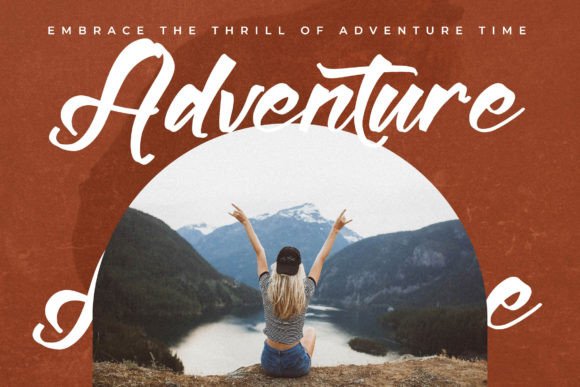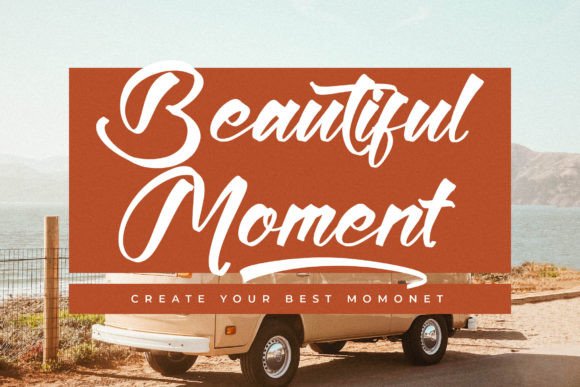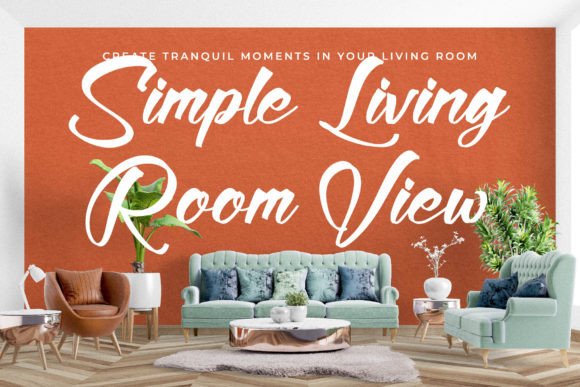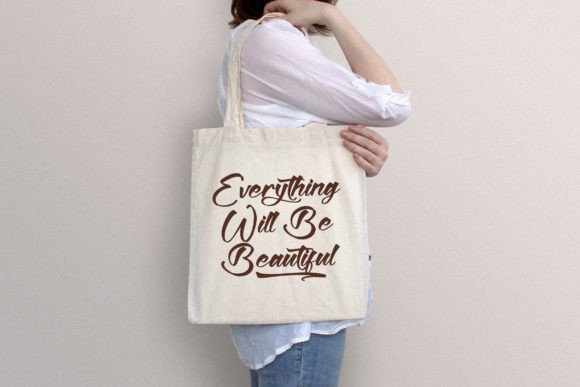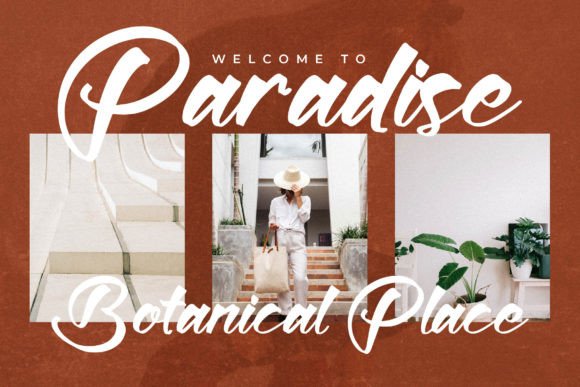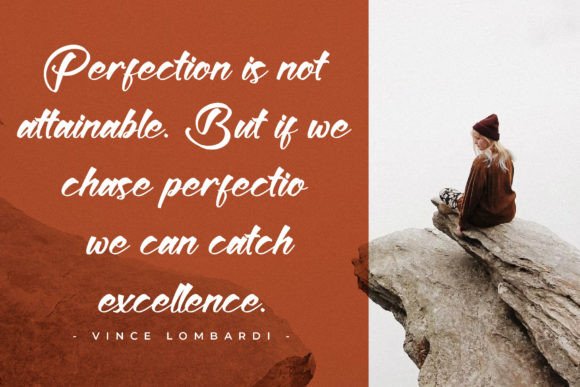
Freytha Brighter – Elevate Your Designs with Modern Calligraphy Script
In the realm of typography, a well-crafted font can elevate a design from ordinary to extraordinary. For those seeking a modern calligraphy script that exudes elegance and sophistication, look no further than Freytha Brighter. This stunning font, created by Glorytype Studio, is perfect for designers and crafters looking to add a touch of luxury to their projects.
What is Freytha Brighter?
Freytha Brighter is a modern calligraphy script font that boasts a beautiful, flowing design. Its elegant strokes and refined lettering make it an ideal choice for a wide range of projects, from logos and branding to homeware designs, product packaging, and more. The font’s versatility and aesthetic appeal have made it a popular choice among designers and crafters.
Key Features of Freytha Brighter
- Elegant Calligraphy Script: Freytha Brighter features a stunning modern calligraphy script with flowing strokes and refined lettering.
- Highly Versatile: The font is suitable for a wide range of projects, including logos, branding, homeware designs, product packaging, and more.
- Easy to Read: Despite its elegant design, Freytha Brighter remains highly legible, making it perfect for use in quotes, posters, and other text-based designs.
Uses for Freytha Brighter
Freytha Brighter is an incredibly versatile font that can be used in a variety of projects, including:
- Logos and Branding: Create a lasting impression with a custom logo or branding design that showcases your business’s unique personality.
- Homeware Designs: Add a touch of elegance to your homeware designs, from cushions and mugs to wall art and decorative accessories.
- Product Packaging: Elevate your product packaging with a beautiful, custom design that stands out on store shelves.
- Mugs and Apparel: Create stunning designs for mugs, t-shirts, and other apparel that make for unique gifts or promotional items.
- Quotes and Posters: Add a touch of sophistication to your quotes and posters with Freytha Brighter’s elegant script.
- Shopping Bags and Stationery: Create custom shopping bags, name cards, invitation cards, and greeting cards that showcase your brand’s personality.
- Labels and Watermarks: Use Freytha Brighter to create beautiful labels and watermarks that add a professional touch to your designs.
Why Choose Freytha Brighter?
With so many fonts available, why choose Freytha Brighter? Here are just a few reasons why this stunning font has become a favorite among designers and crafters:
- Unique and Elegant Design: Freytha Brighter boasts a unique and elegant design that sets it apart from other fonts.
- Highly Versatile: The font’s versatility makes it suitable for a wide range of projects, from logos and branding to homeware designs and product packaging.